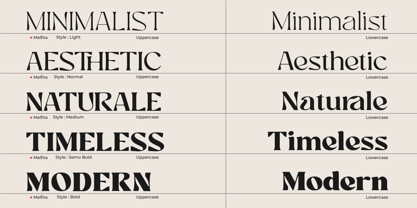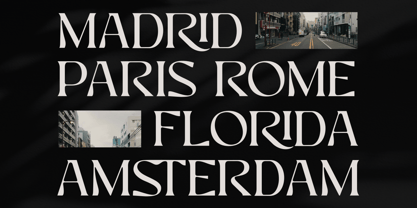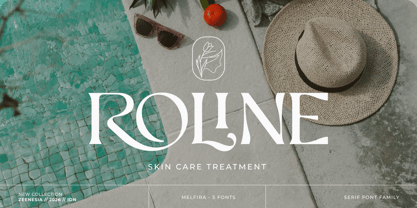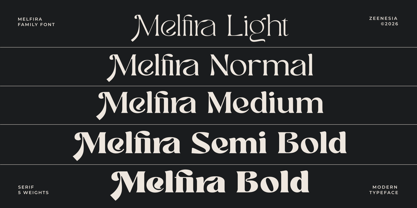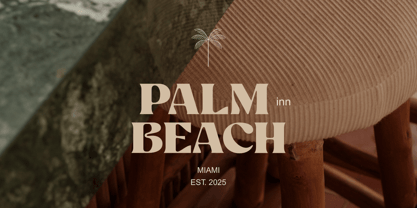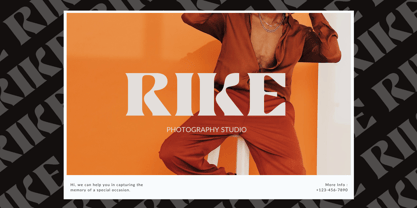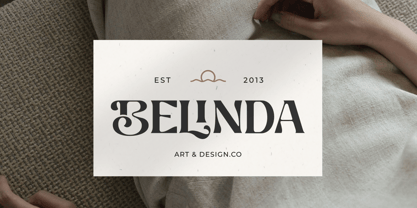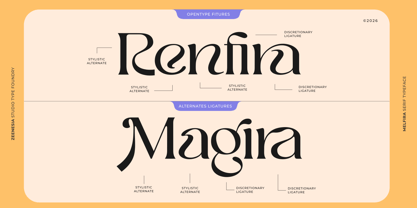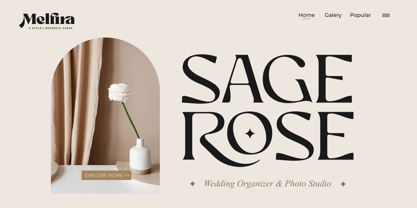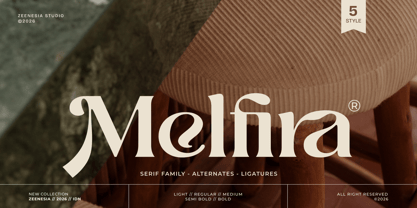
Melfira
by Zeenesia Studio
The Melfira Font Family was designed by Doni Purwoko and published by Zeenesia Studio. Melfira contains 5 styles and family package options. More about this family
Melfira – Modern Elegant Serif Typeface Melfira is a refined serif typeface that blends modern sophistication with timeless elegance. Designed with graceful curves, high-contrast strokes, and distinctive letterforms, Melfira brings a luxurious and stylish touch to any design. With 5 versatile styles ranging from Light to Bold, this font family offers flexibility for both subtle and striking typography. Each character is carefully crafted to deliver a harmonious balance between readability and artistic expression. Perfect for branding, logos, editorial layouts, fashion projects, invitations, and premium packaging, Melfira elevates your design with a classy and contemporary aesthetic. Make your work stand out with a typeface that speaks elegance in every detail.
Melfira